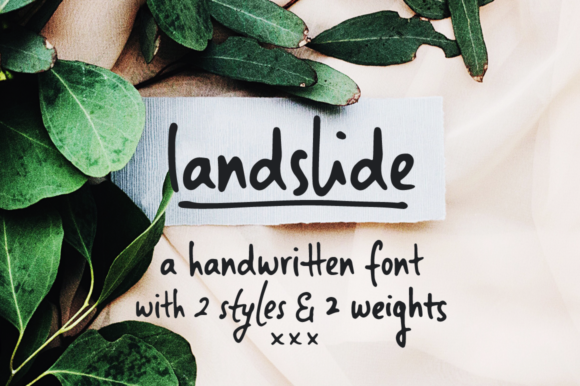
Presenting Landslide Font - A Delicate Touch for Your Designs
Embark on a typographic journey with Landslide Font, the exquisite script font that exudes elegance and charm. Meticulously crafted by anasfonts, this unique handwritten font is a treasure trove of creativity, designed to infuse your designs with a touch of personality and sophistication.
Immerse yourself in the world of Landslide Font, where letters dance and flow effortlessly, like a gentle breeze whispering through the pages of your imagination. Its enchanting curves and fluid lines add a touch of warmth and grace to any project, making it the perfect choice for wedding invitations, thank you cards, logos, and more.
With Landslide Font, the possibilities are endless. Its versatility knows no bounds, allowing you to weave your words into captivating works of art. Create personalized greeting cards that speak from the heart, design wedding invitations that radiate elegance, or craft logos that leave a lasting impression.